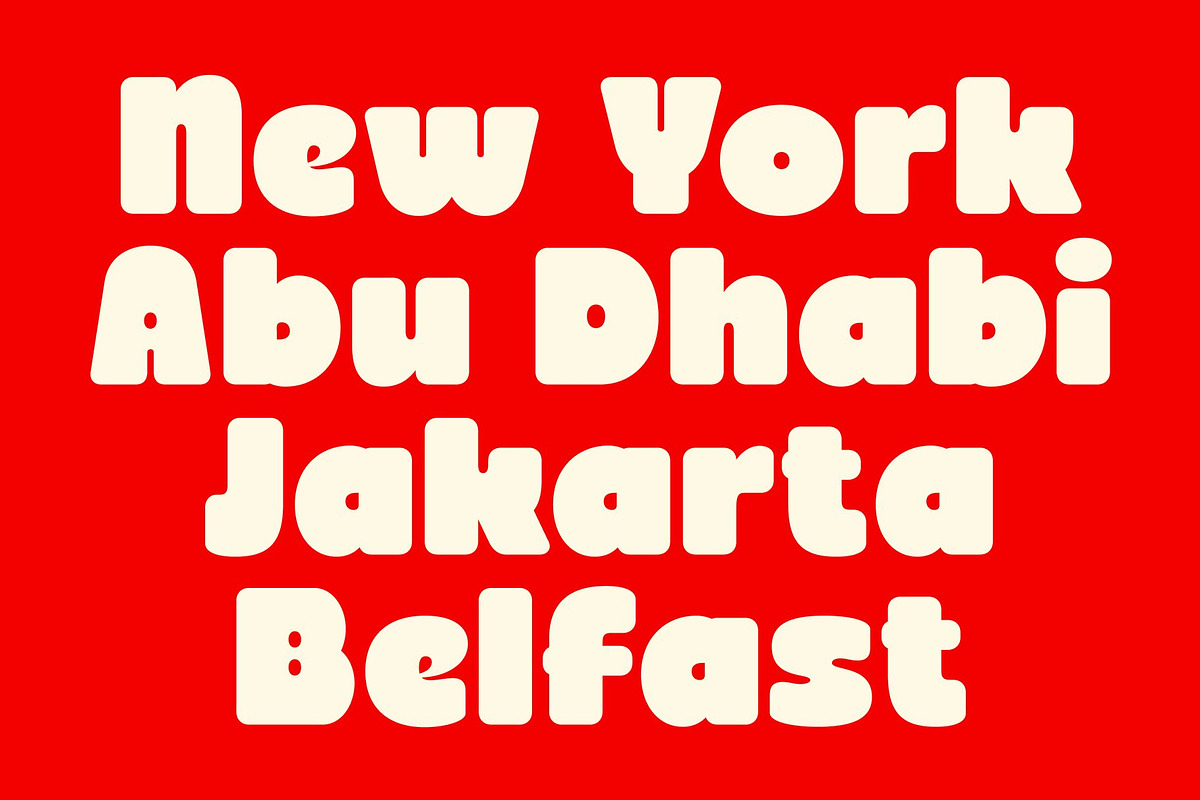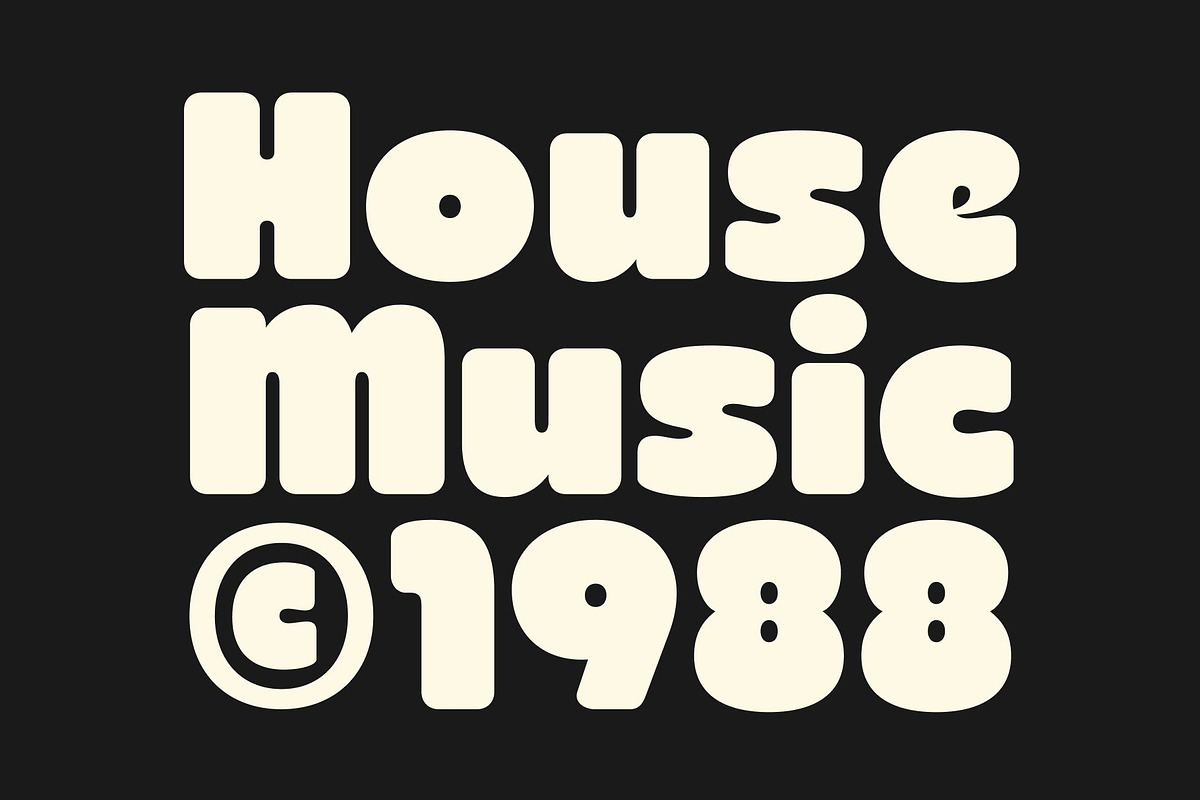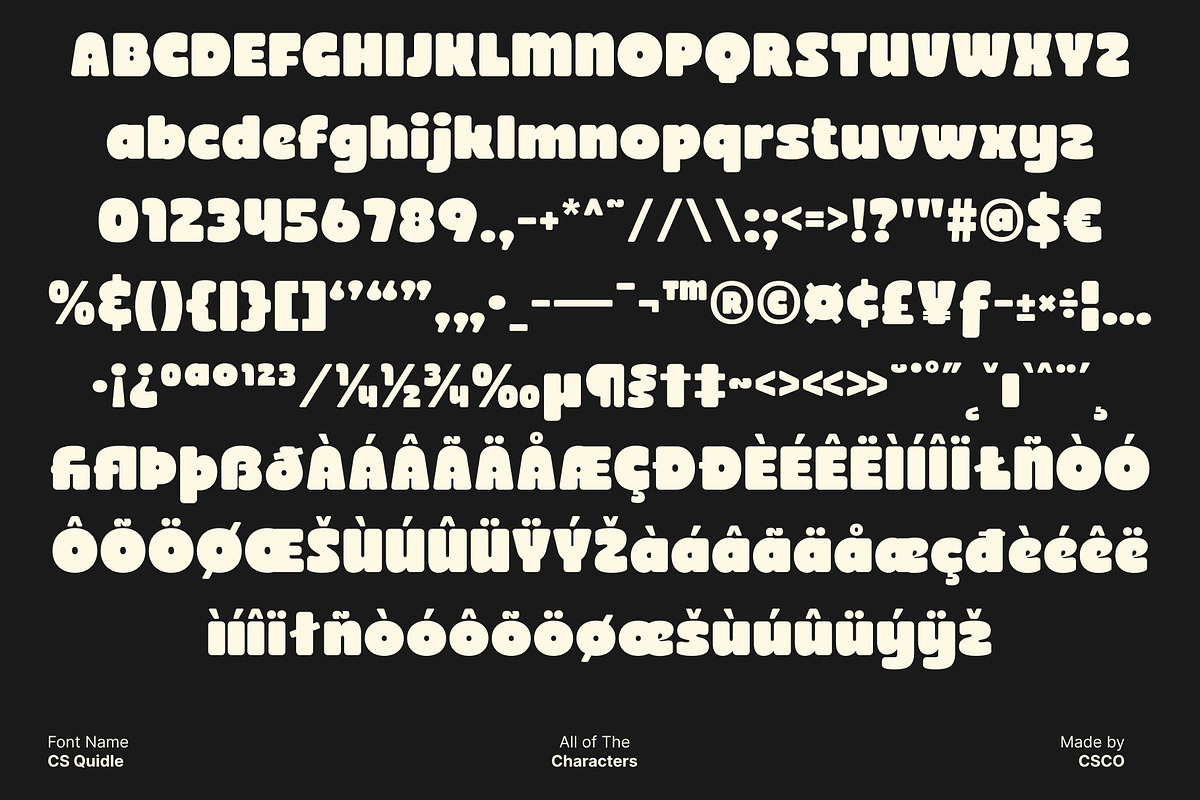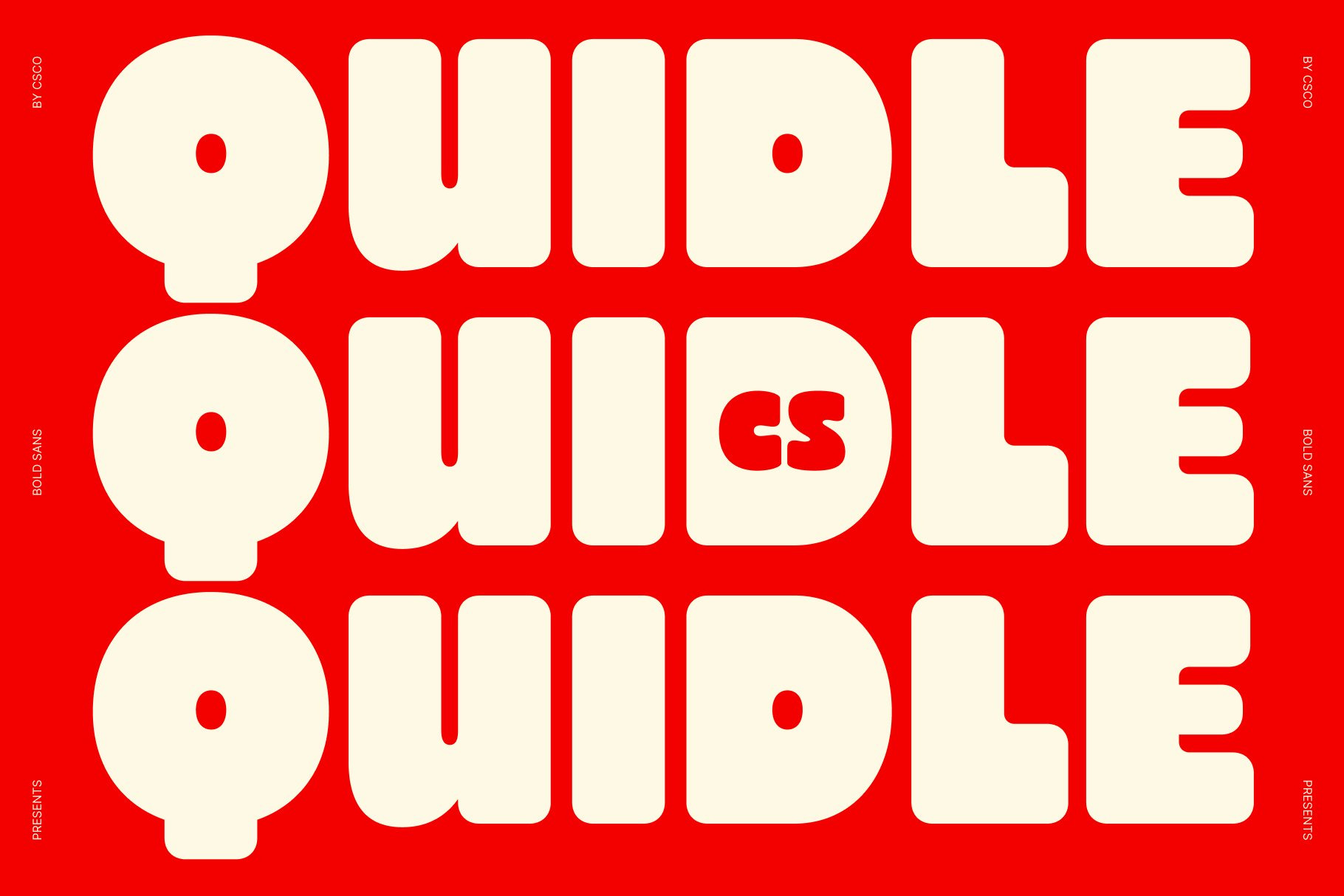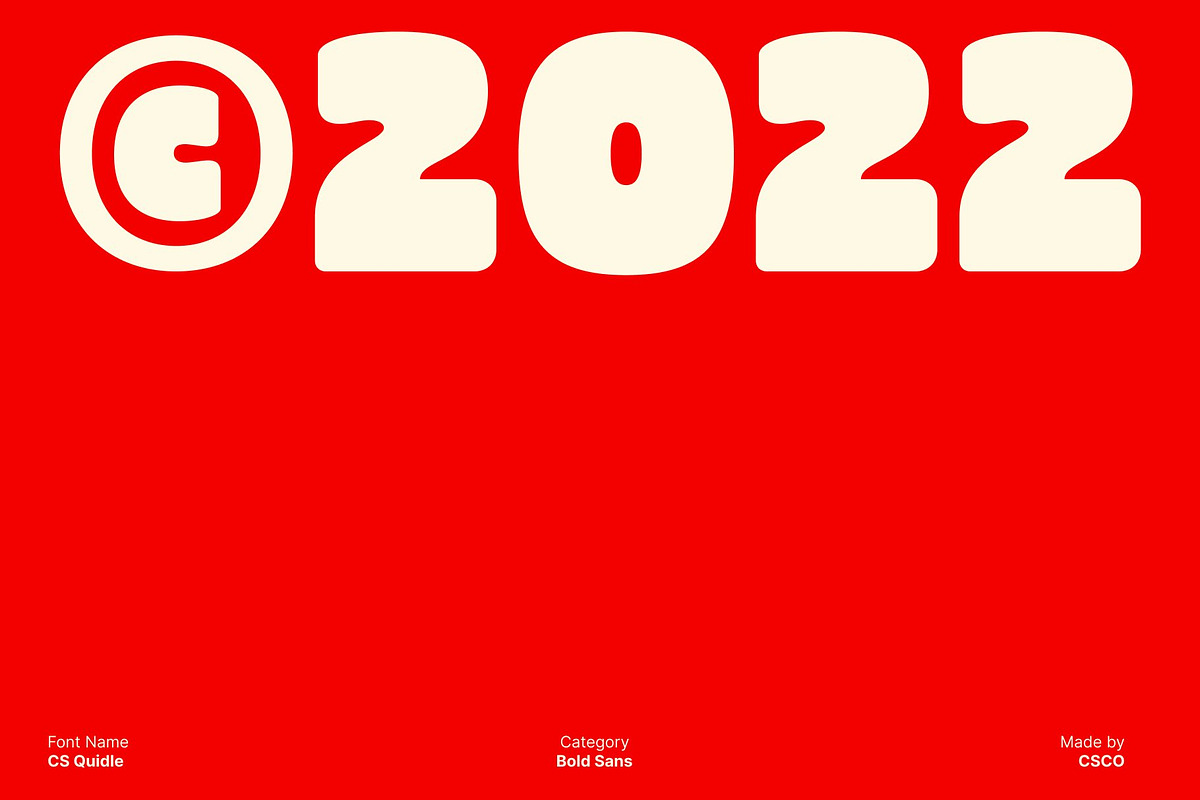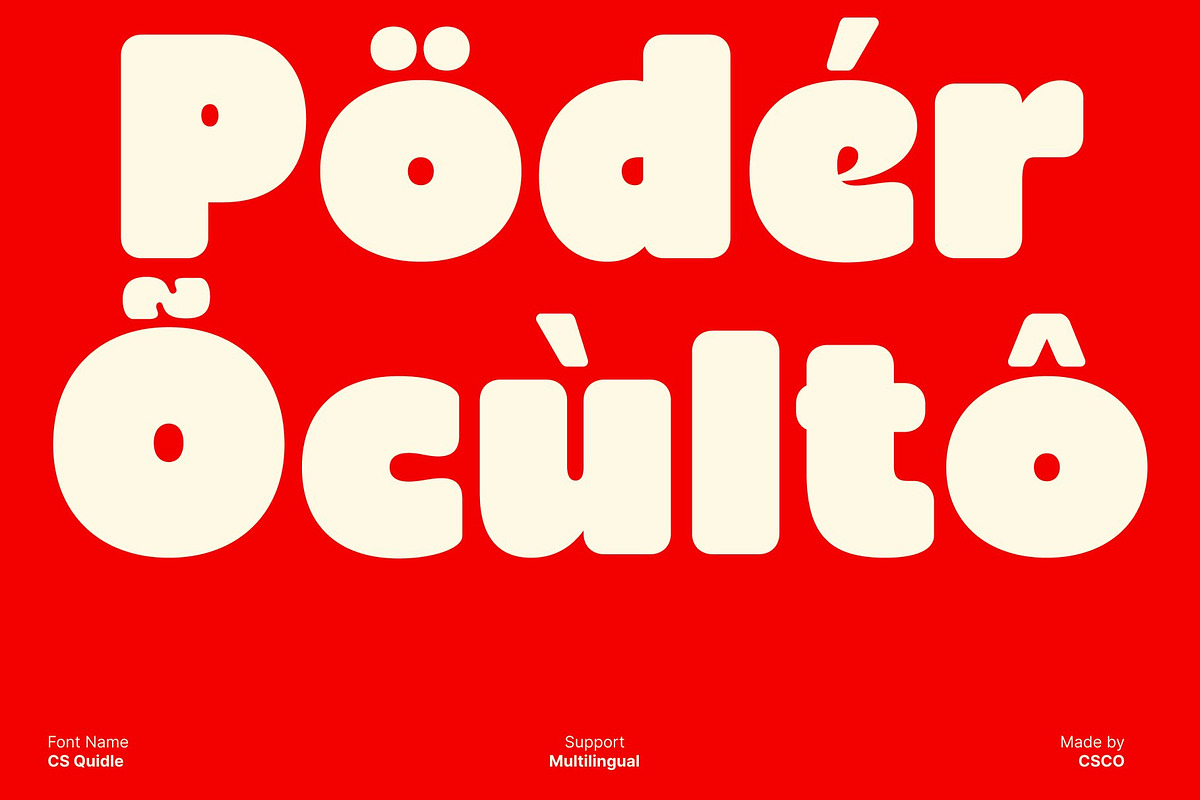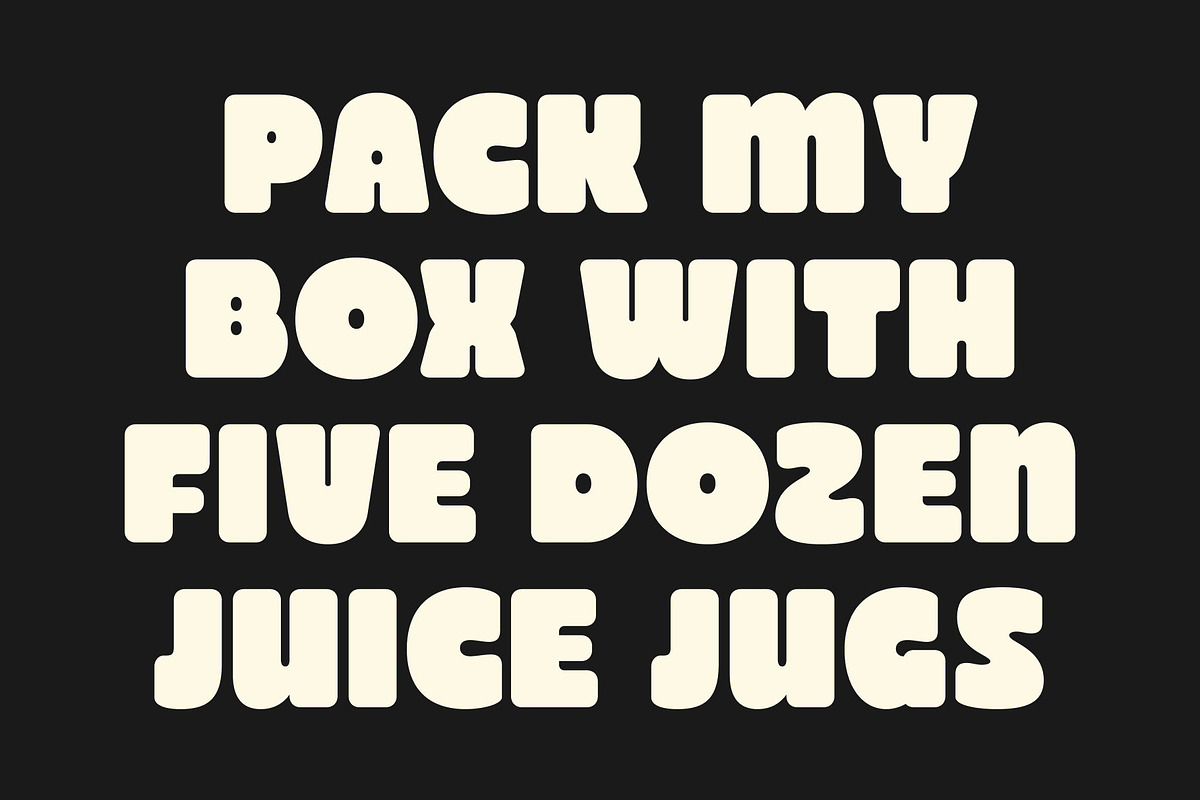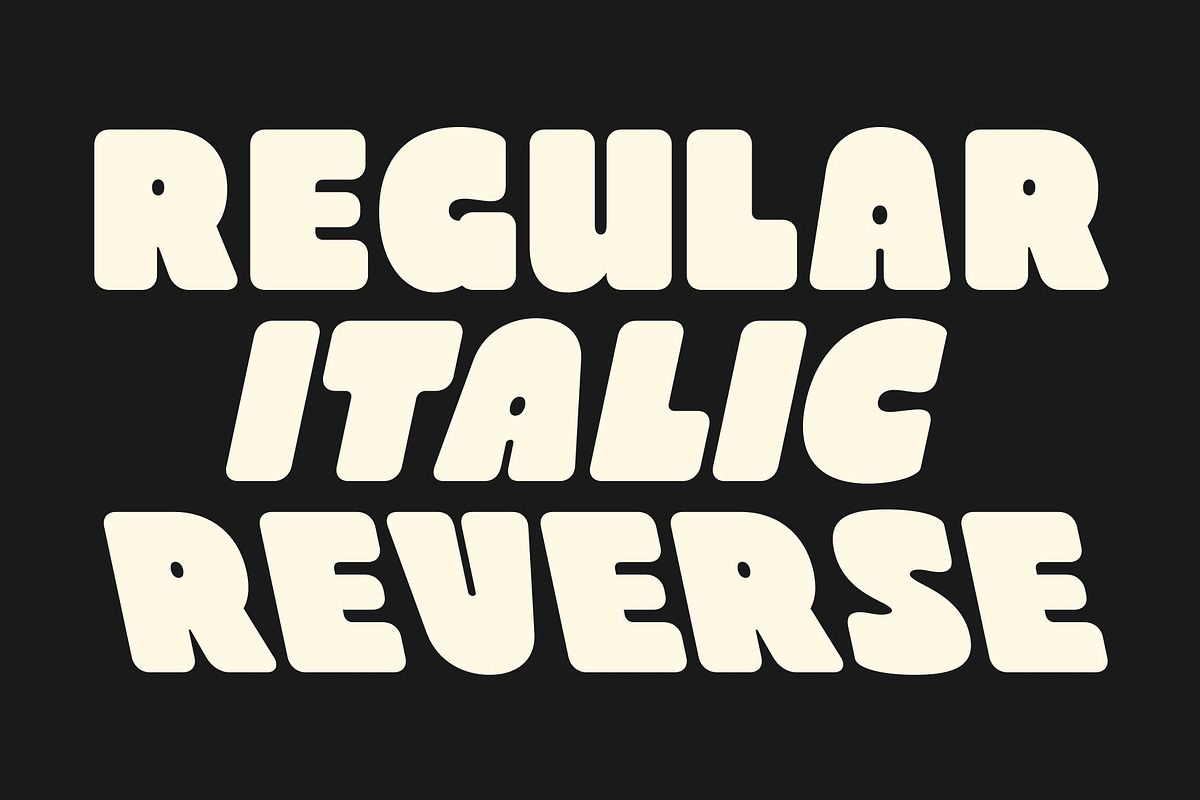
CS Quidle – Chunky Font
CS Quidle – Bold Charm with Playful Personality
Chunky Display Font This is a bold, chunky display font designed to make a strong statement. Its confident geometric shapes are complemented by soft, approachable letterforms, creating a modern yet cute style that is full of character and charm.
Quirky Details for Visual Interest The playful quirks in each letter add a whimsical touch, giving this font a unique personality. These subtle design features make your headlines, posters, and packaging designs stand out, engaging viewers with fun and creative energy.
Thick Strokes for Maximum Impact With its thick strokes and clean lines, this font ensures readability while commanding attention. This makes it perfect for bold headlines, social media graphics, product packaging, and branding that requires a strong visual presence.
Versatile for Creative Projects Despite its bold appearance, this font is versatile enough for a wide range of applications. From playful branding and advertising to impactful editorial layouts, this typeface balances fun flair with confident style, delivering maximum appeal for any creative project.
- CS Quidle Regular
- CS Quidle Italic
- CS Quidle Reverse Italic